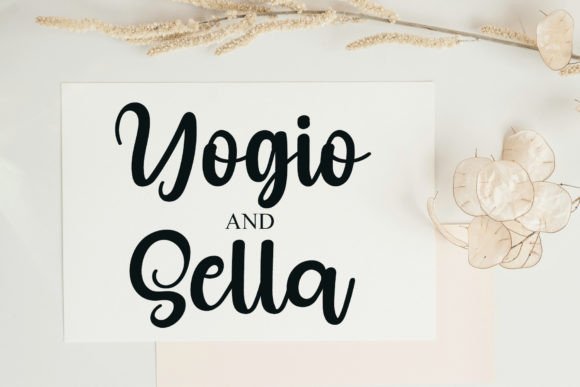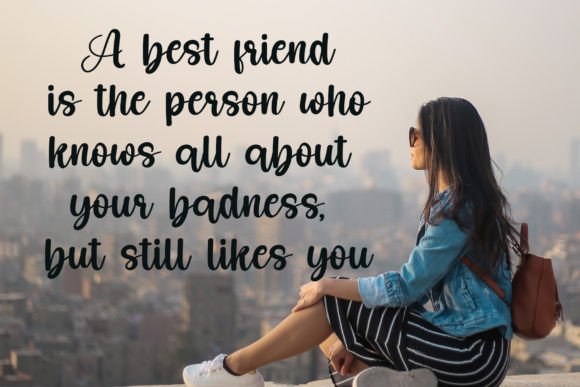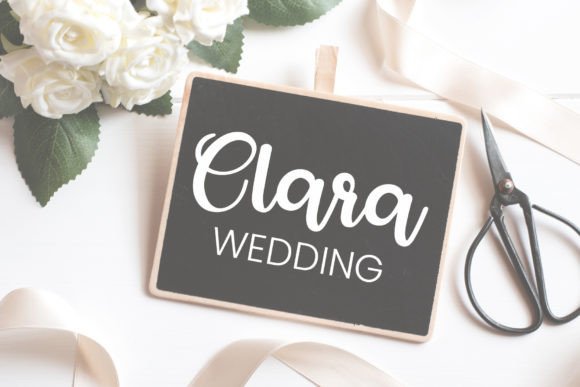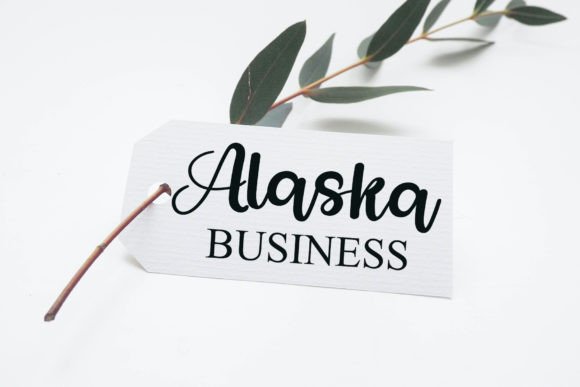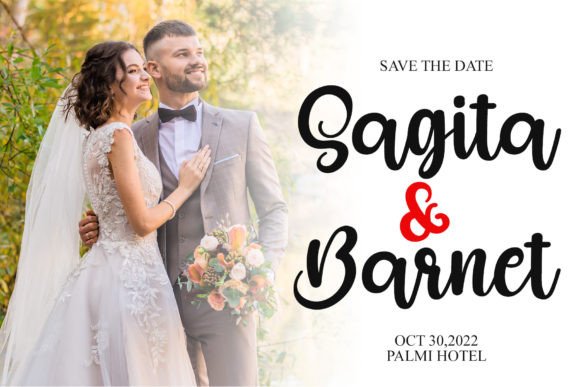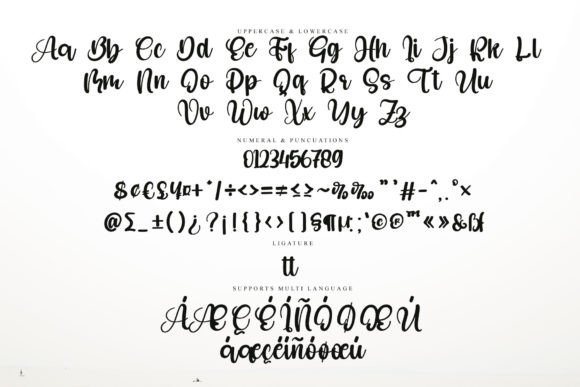
Introduction to Hungry Font
Hungry is a stylish and dainty script font.
It is suitable for any projects such as logos, branding projects, labels, photography, watermark, special events, and all your other lovely projects that need a beautiful handwritten touch .
Key Features of Hungry Font
Why Choose Hungry Font?
Hungry Font offers exceptional quality and versatility, making it a valuable addition to your design toolkit. Whether you’re creating for personal projects or commercial use, Hungry Font delivers professional results.